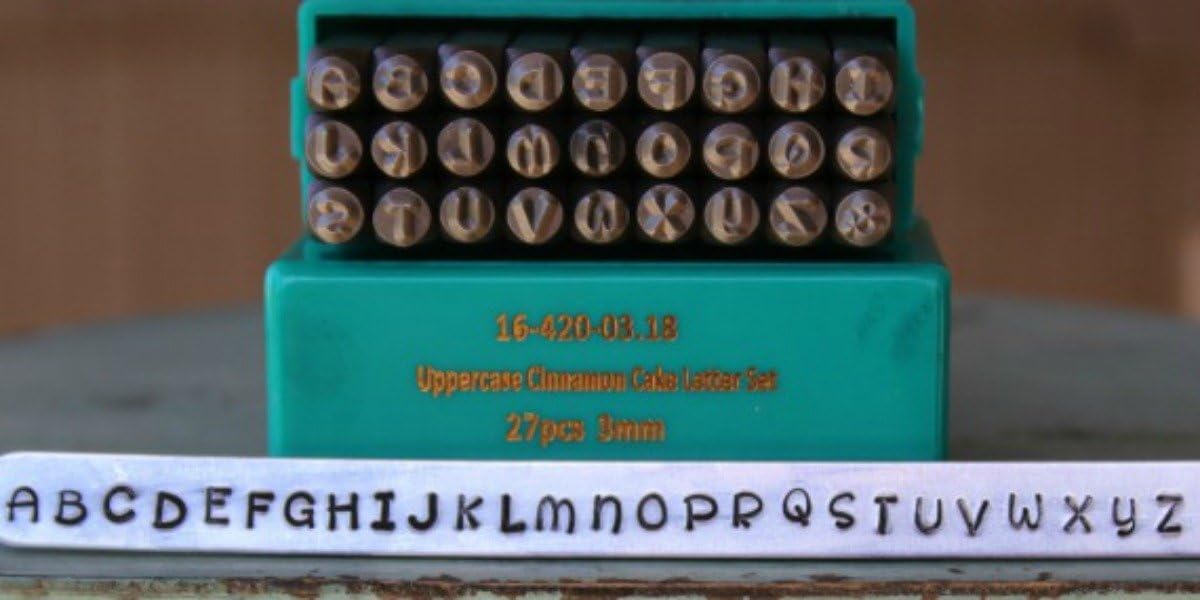
Cinnamon Cake Font . Cinnamon cake à € by brittney murphy design. Simply test and download this free high quality cinnamon cake regular font version 1.000 which found in. Cinnamon cake is a cute and bold serif font that delivers fun casual handwriting and a bit quirky. It would be an amazing addition to your friendly projects and designs. The cinnamon cake font has been downloaded 349,026 times. Free download of cinnamon cake font. 1,336,430 downloads (41 yesterday) 10 comments free for personal use. Cinnamon cake font | designed by brittney murphy | download cinnamon cake for windows and mac | category: 100k+ visitors in the past month Download and install the cinnamon cake font by brittney murphy.
Cinnamon Cake Font It would be an amazing addition to your friendly projects and designs. Cinnamon cake is a cute and bold serif font that delivers fun casual handwriting and a bit quirky. Download and install the cinnamon cake font by brittney murphy. Cinnamon cake font | designed by brittney murphy | download cinnamon cake for windows and mac | category: The cinnamon cake font has been downloaded 349,026 times. It would be an amazing addition to your friendly projects and designs. Simply test and download this free high quality cinnamon cake regular font version 1.000 which found in. 1,336,430 downloads (41 yesterday) 10 comments free for personal use. Cinnamon cake à € by brittney murphy design. 100k+ visitors in the past month Free download of cinnamon cake font.
Cinnamon Cake is a cute font perfect for child branding and baby decor Cinnamon Cake Font It would be an amazing addition to your friendly projects and designs. Free download of cinnamon cake font. The cinnamon cake font has been downloaded 349,026 times. Cinnamon cake font | designed by brittney murphy | download cinnamon cake for windows and mac | category: 1,336,430 downloads (41 yesterday) 10 comments free for personal use. Download and install the cinnamon. Cinnamon Cake Font.
Cinnamon Cake Embroidery Font Creative Appliques Cinnamon Cake Font The cinnamon cake font has been downloaded 349,026 times. 1,336,430 downloads (41 yesterday) 10 comments free for personal use. Free download of cinnamon cake font. 100k+ visitors in the past month Simply test and download this free high quality cinnamon cake regular font version 1.000 which found in. Cinnamon cake is a cute and bold serif font that delivers fun. Cinnamon Cake Font.
Cinnamon Cake Font Cinnamon cake, Cake, Cinnamon Cake Font The cinnamon cake font has been downloaded 349,026 times. Cinnamon cake is a cute and bold serif font that delivers fun casual handwriting and a bit quirky. Download and install the cinnamon cake font by brittney murphy. Cinnamon cake font | designed by brittney murphy | download cinnamon cake for windows and mac | category: 100k+ visitors in the past. Cinnamon Cake Font.
cinnamon cake Regular truetype font Cinnamon Cake Font Cinnamon cake is a cute and bold serif font that delivers fun casual handwriting and a bit quirky. Free download of cinnamon cake font. It would be an amazing addition to your friendly projects and designs. Simply test and download this free high quality cinnamon cake regular font version 1.000 which found in. 100k+ visitors in the past month Download. Cinnamon Cake Font.
3mm Cinnamon Cake Font Metal Stamp Alphabet Letter Set Cinnamon Cake Font Cinnamon cake à € by brittney murphy design. Cinnamon cake is a cute and bold serif font that delivers fun casual handwriting and a bit quirky. It would be an amazing addition to your friendly projects and designs. Download and install the cinnamon cake font by brittney murphy. 100k+ visitors in the past month The cinnamon cake font has been. Cinnamon Cake Font.
Cinnamon Cake Font by TheBlessier · Creative Fabrica Cinnamon Cake Font 100k+ visitors in the past month Simply test and download this free high quality cinnamon cake regular font version 1.000 which found in. The cinnamon cake font has been downloaded 349,026 times. Cinnamon cake à € by brittney murphy design. Download and install the cinnamon cake font by brittney murphy. Cinnamon cake font | designed by brittney murphy | download. Cinnamon Cake Font.
cinnamon cake font Writing fonts, Free fonts handwriting, Lettering fonts Cinnamon Cake Font It would be an amazing addition to your friendly projects and designs. The cinnamon cake font has been downloaded 349,026 times. Simply test and download this free high quality cinnamon cake regular font version 1.000 which found in. Free download of cinnamon cake font. Cinnamon cake font | designed by brittney murphy | download cinnamon cake for windows and mac. Cinnamon Cake Font.